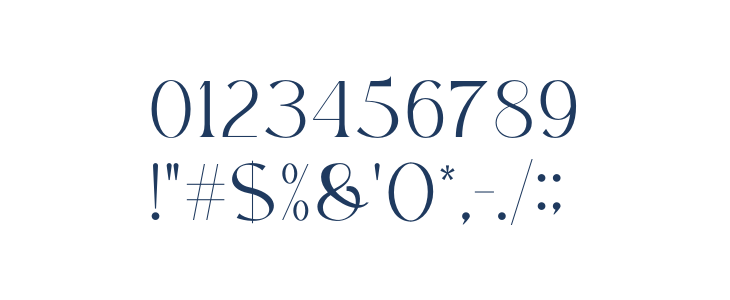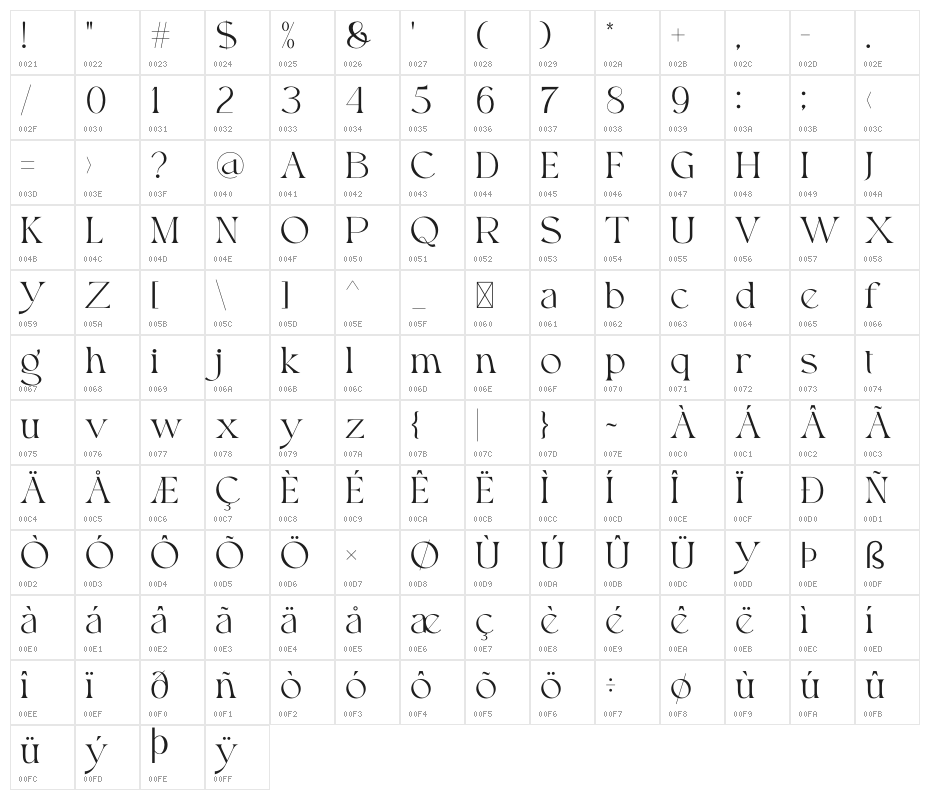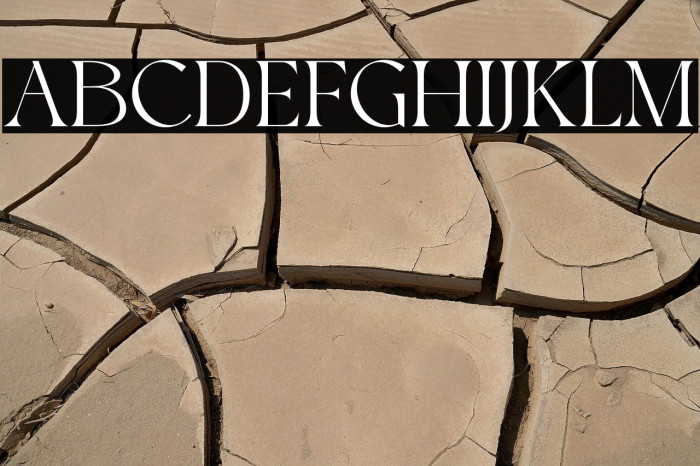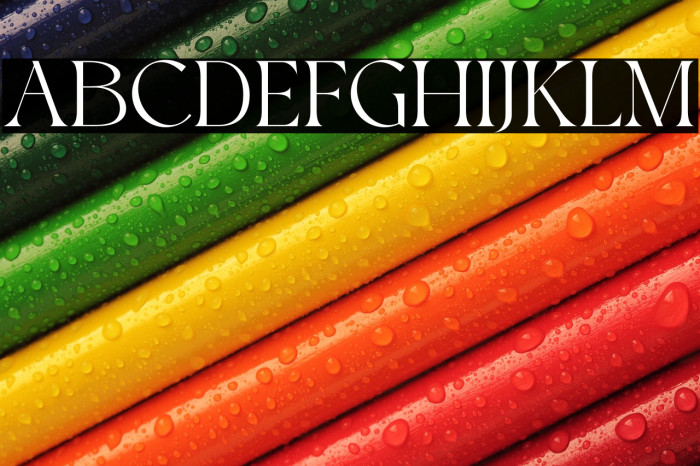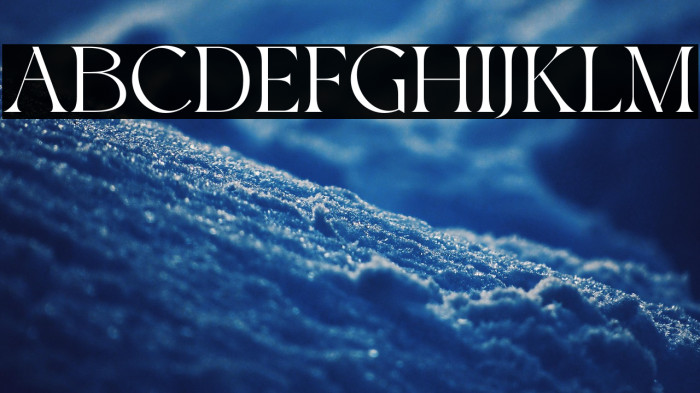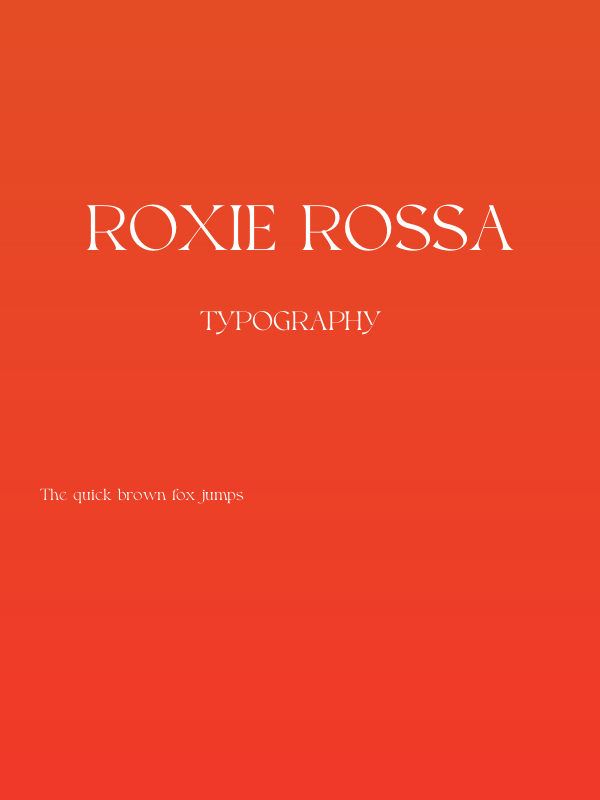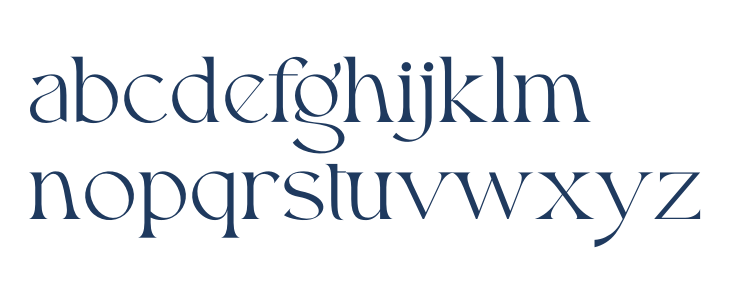
Roxie Rossa Font
Roxie Rossa Description
This font features a sophisticated and elegant design with a high contrast between thick and thin strokes, giving it a refined and stylish appearance. The serifs are sharp and pronounced, adding to its classic charm. The uppercase letters exhibit a graceful and balanced form, while the lowercase letters maintain a consistent flow with subtle curves. The numerals are distinct and align well with the overall aesthetic, making them suitable for both formal and decorative purposes. Special characters are thoughtfully designed, maintaining the font's cohesive look. This font is ideal for projects that require a touch of elegance and sophistication.
Overall StyleClassic
Use CaseHeadlines, Logos, Invitations
Proposed ProjectsIdeal for luxury branding, wedding invitations, editorial design, and high-end packaging.